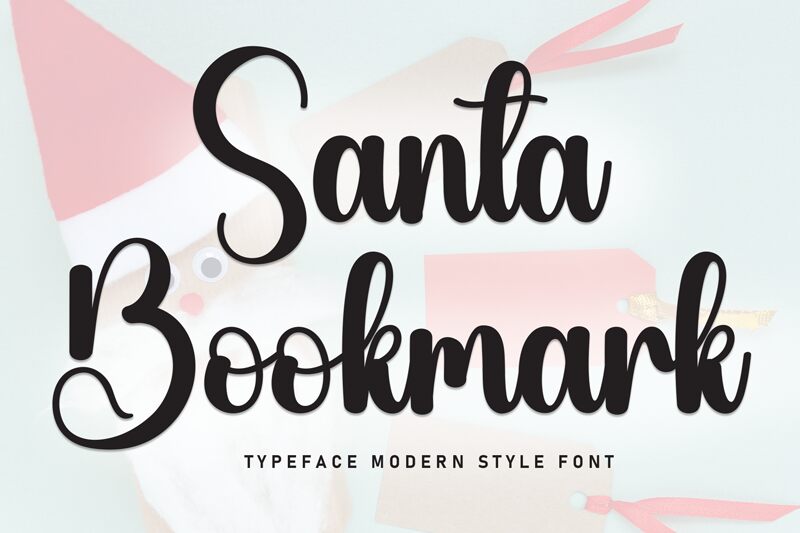
Santa Bookmark font is a contemporary script font designed by Andi Moz. Its expressive and decorative lettering style is ideal for festive themes with a unique touch of elegance and warmth. The characters are fluid and dynamic, inviting a friendly and energetic mood to every design. This script font features a modern and smooth flow that is easy on the eyes and provides lots of versatility for modern applications.
From seasonal greeting cards to brand designs and publication covers, use Santa Bookmark for a host of designs. The font is equally suitable for social media posts and thumbnails, quotes, and blog posts for personal and even professional projects. It is also perfect for packaging designs, labels, and in-store displays and signage.
This is a sweet and friendly handwritten display font. Cute and fun, this font is ideal for writing wedding invitations, cards, or any other design that requires a playful touch.